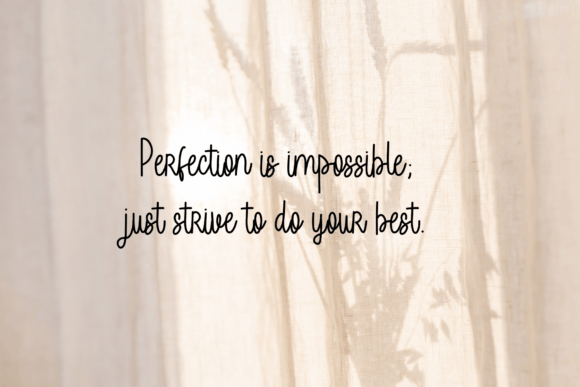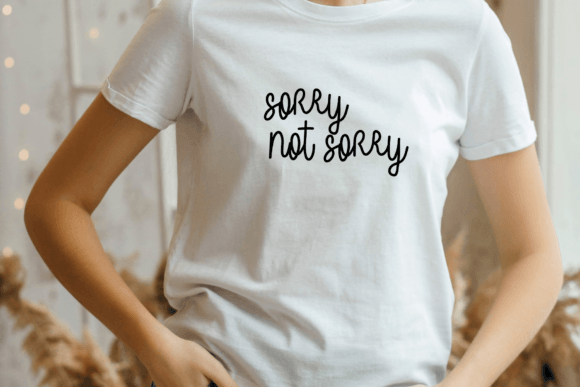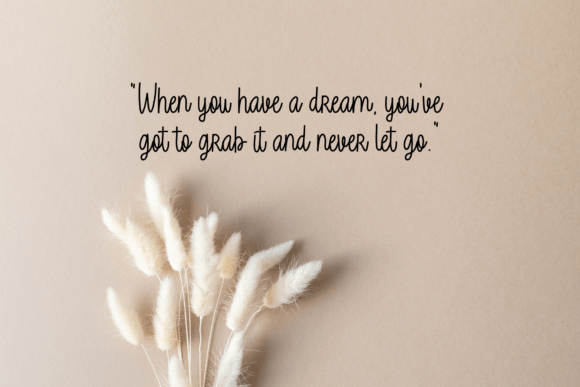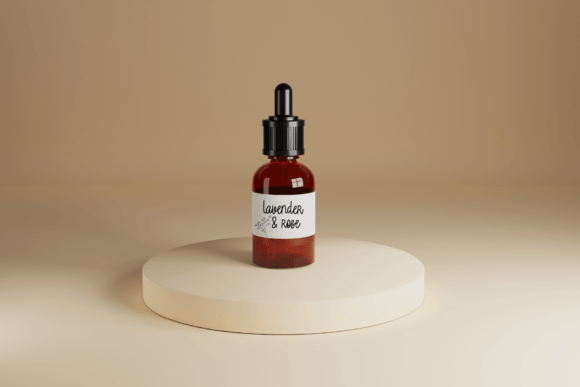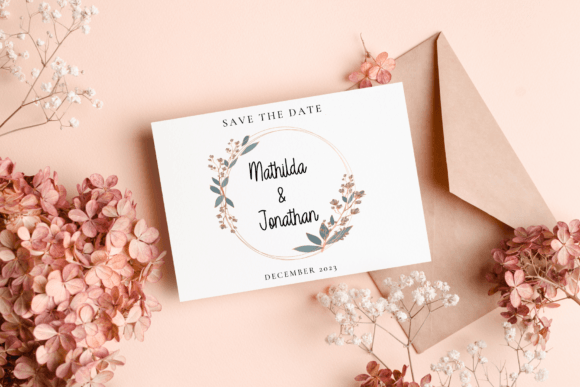
About Gilliflower Font
Gilliflower is a quirky and messy handwritten font. Use Gilliflower to create super beautiful logos, branding, notebooks, journals, labels, stickers, blogs, quotes, greeting cards, tea towels, apparel, pillows, mugs, toys, posters, baby clothing, picture books and so much more…basically anything that requires a stylish and handwritten look!